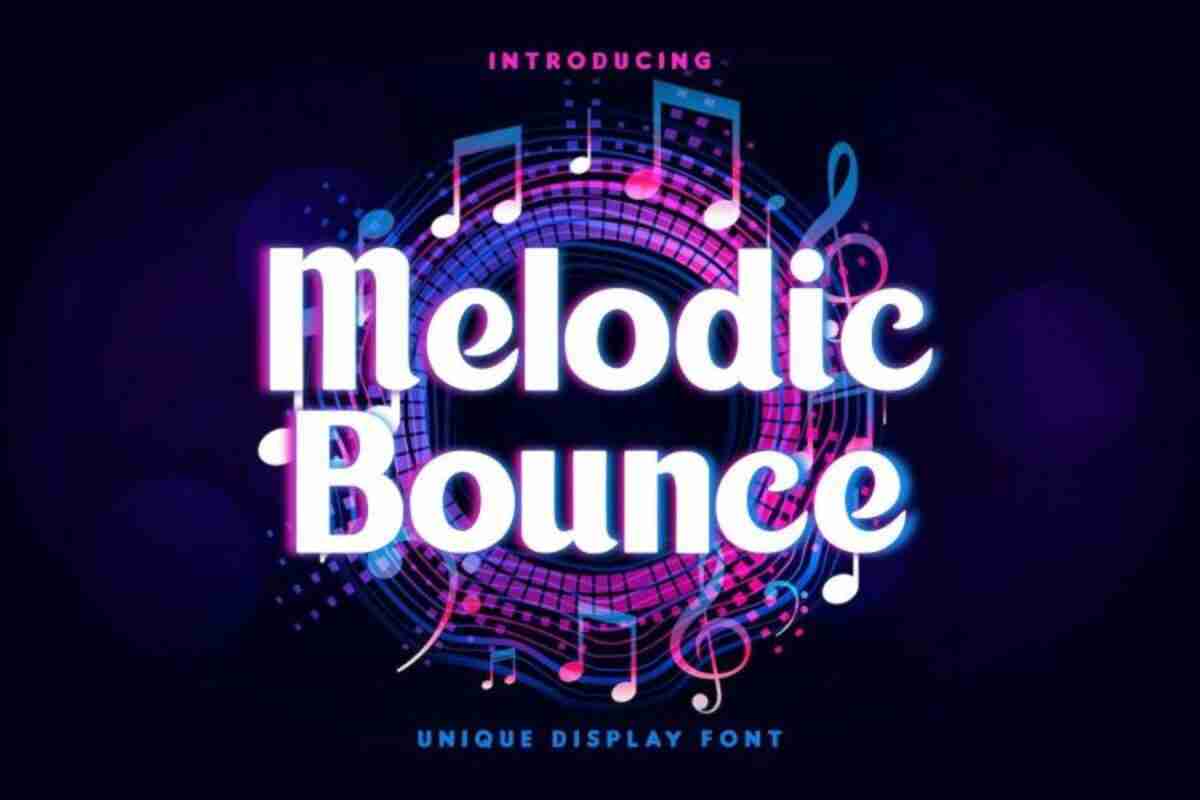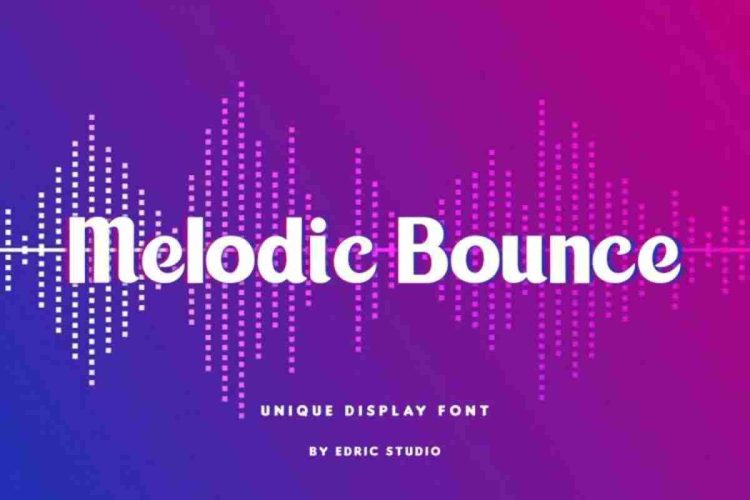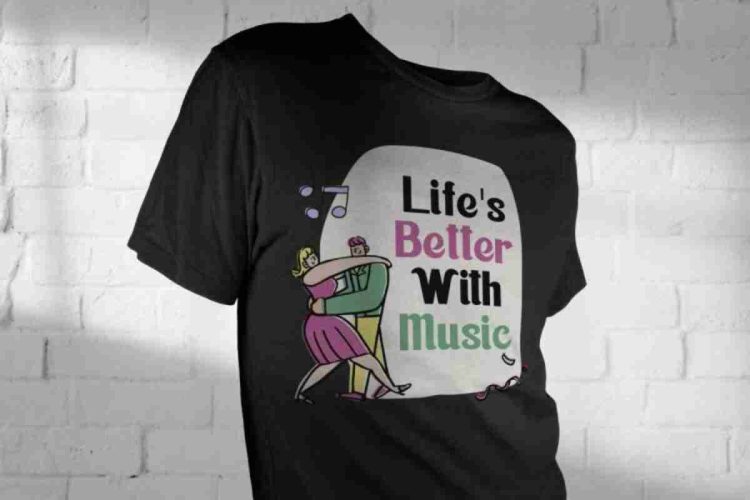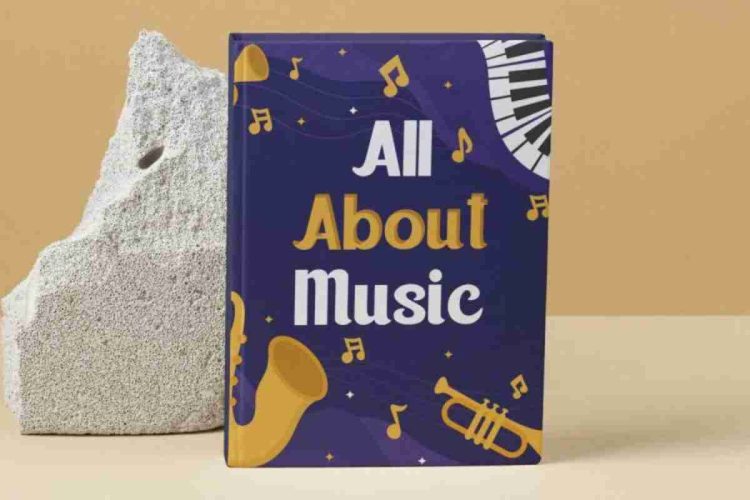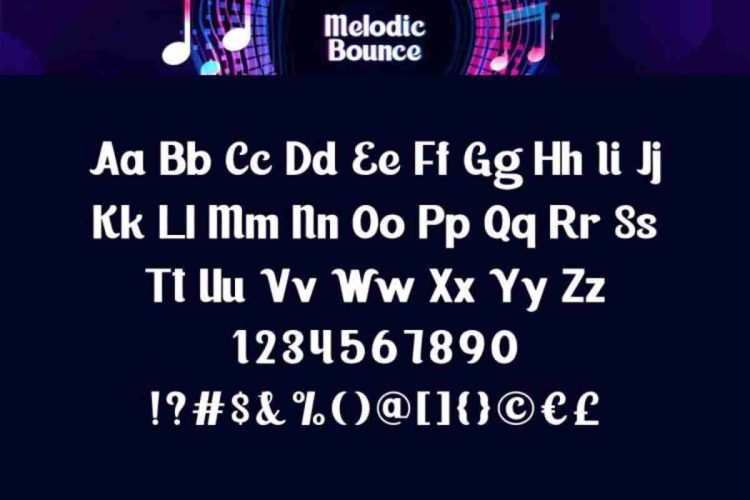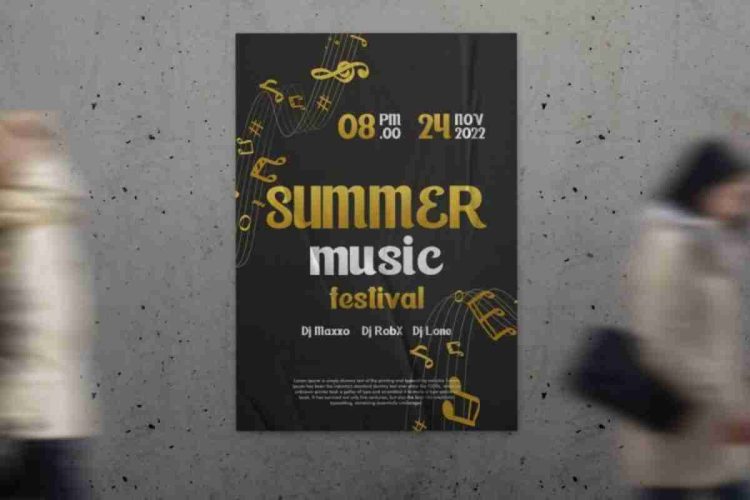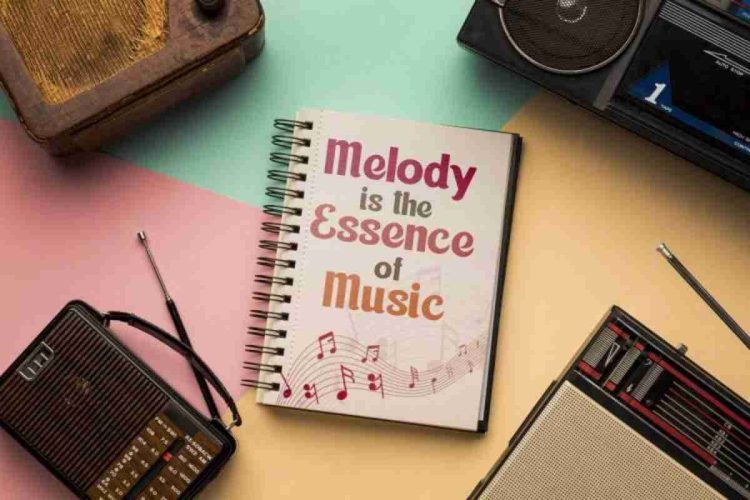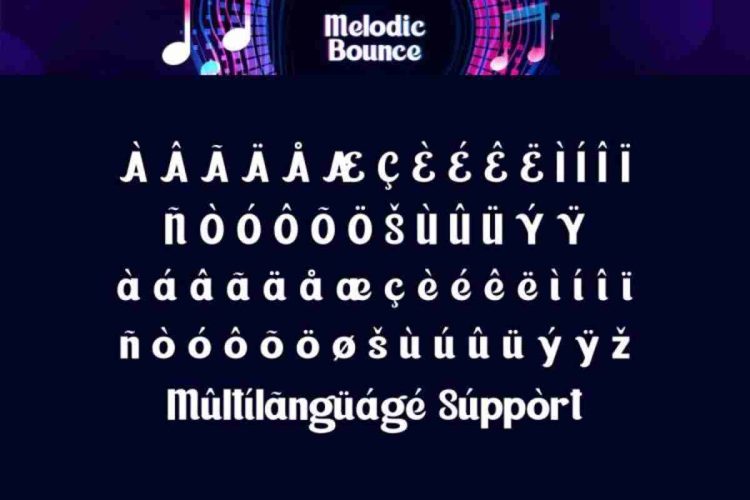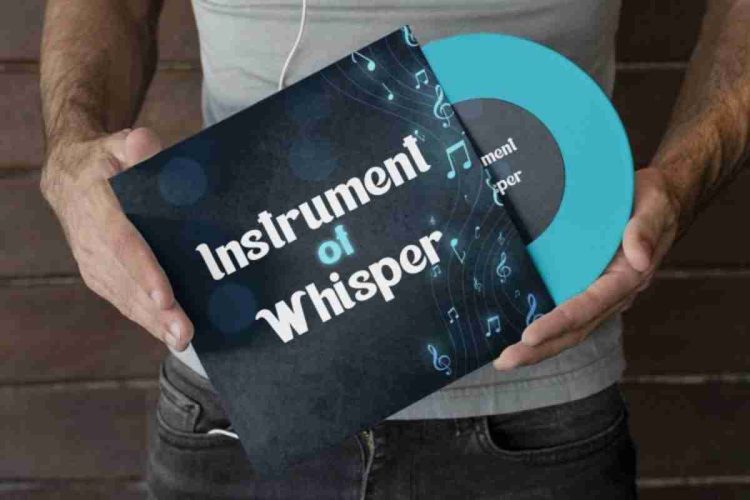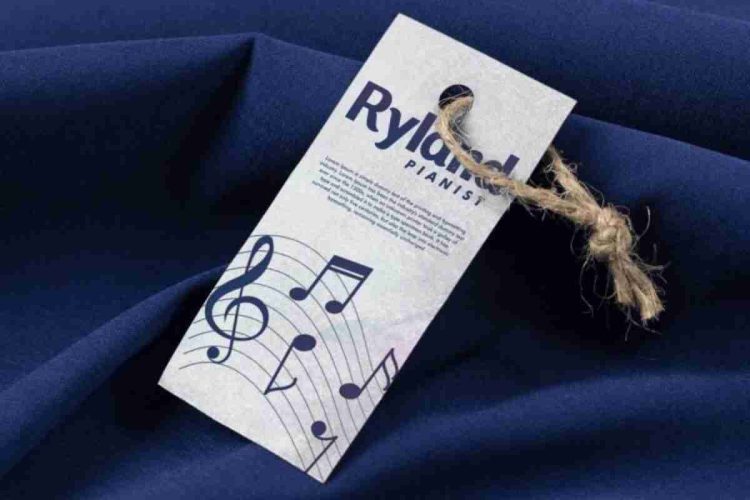
Melodic Bounce Display Font
Melodic Bounce Display Font is a unique and modern display font, inspired by bouncing, disco music vibes.
Melodic Bounce Display Font comes with a full set of Uppercase and Lowercase Basic Characters, Number, large range of Punctuation, and Symbol. It has a stunning characters set, perfectly managed with well spaced and kerning. Melodic Bounce Display Font will be great for any projects (with extended license) including: brand logo, headline, labels, poster, stationery, t-shirt design, title, vinyl cover, etc.
Melodic Bounce Display Font is a playful typeface with unique decoration in each character. Ready to use both on Windows machine or Mac with simple installations. It’s tested to work well in the Adobe Apps (Illustrator, Adobe InDesign, Adobe Photoshop) even work on Microsoft Word. PUA Encode Characters means you can access all the glyphs and other characters easily – Fully accessible without additional design software.